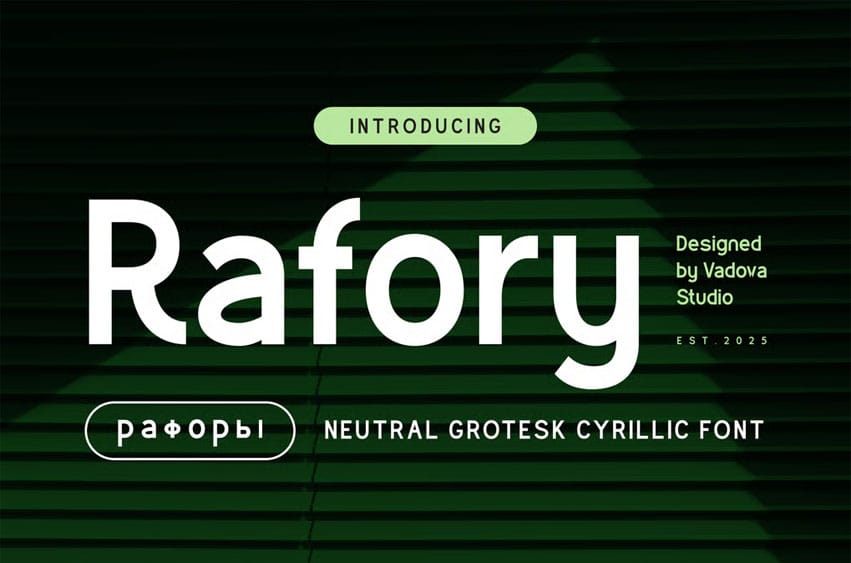
Rafory Font is a neutral grotesk typeface refined for clarity, grace, and control. Its presence is calm yet powerful—balancing formal simplicity with just enough character to stand out. The mood it evokes is modern sophistication, created for designs that speak softly but leave a lasting impression. Its overall tone feels polished and grounded, suitable for high-end fashion, professional branding, and lifestyle-focused marketing.
Tailored for markets like fashion lookbooks, art galleries, boutique product branding, and minimalist campaigns, Rafory brings a high-concept touch to any project that needs to blend understated elegance with global functionality. It includes Cyrillic support, allowing brands to maintain a consistent typographic voice across regions and languages.
The font’s structure is built on solid geometric principles with rounded terminals and harmonious spacing. Its sans-serif anatomy remains clean, measured, and confident—making it extremely legible across digital and print platforms. Rafory finds its strength in quiet flexibility, adapting seamlessly to editorial headlines, clean web interfaces, luxury packaging, and gallery-grade posters.
Its best applications include contemporary branding, bilingual editorial layouts, art publications, promotional fashion kits, product labeling, and web-based portfolios that value calm refinement over noise.
Suitable For: fashion campaigns, luxury product branding, editorial magazines, minimalist portfolios, global identity systems, lookbooks, modern UI designs, high-end packaging, gallery posters, brand kits, bilingual presentations, advertising assets, online catalogs, typography-focused websites, and upscale signage.